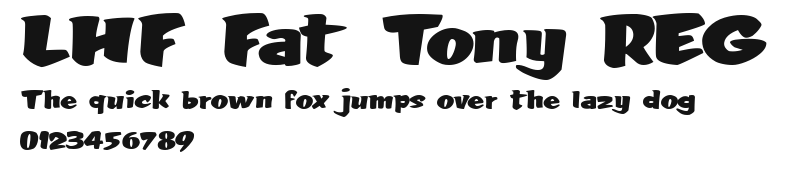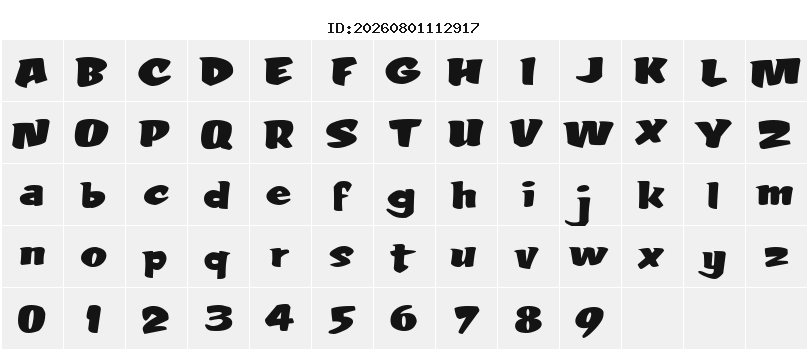
• Font Name: LHF Fat Tony REG
• Font ID: LHF Fat Tony REG
• Full Font Name: LHF Fat Tony REG
• PostScript Name: LHFFatTonyREG
• Copyright: © 2001 Letterhead Fonts, Designed by: Chuck Davis
About LHF Fat Tony REG.ttf
LHF Fat Tony REG.ttf is a modern, elegant sans-serif font designed for ultimate readability and visual harmony. Perfect for branding, headlines, web design, and print materials.